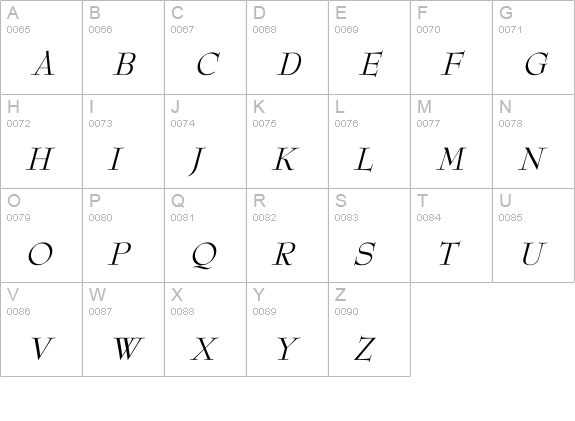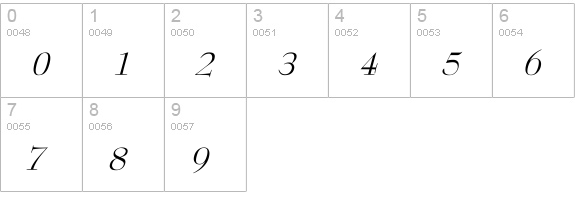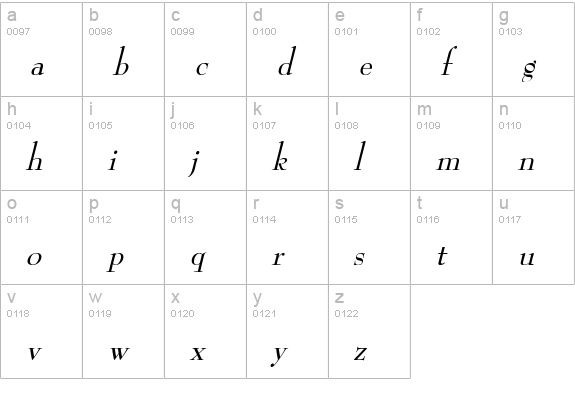
ReedFont Italic Font Details
ReedFont Italic is a distinctive, italic variant in the ReedFont typeface family \xE2\x80\x94 well suited to design and typography projects.
ReedFont Italic is a visually stunning font that brings a touch of elegance and sophistication to any design project. Its slanted and sleek appearance adds a stylish flair, making it perfect for headings, titles, and other eye-catching elements. This exquisite font showcases a unique blend of modernity and classic charm, making it suitable for a wide range of applications. Whether you're designing a website, crafting a logo, or creating a beautiful invitation, ReedFont Italic effortlessly elevates your design with its subtle yet impactful presence. What sets ReedFont Italic apart is not just its captivating aesthetics, but also the fact that it is available for free. Yes, you read that right! This amazing font can be freely downloaded at FontsMarket.com, ensuring that you can access this gem without breaking the bank. With its smooth and flowing letterforms, ReedFont Italic exudes a sense of sophistication and grace. Each character is carefully crafted, allowing for seamless readability and legibility, even at smaller sizes. The italicized slant adds a touch of dynamism, making your text appear dynamic and engaging. Designed with versatility in mind, ReedFont Italic effortlessly adapts to various design styles and themes. Whether you're going for a minimalist approach or aiming for a more ornate and decorative look, this font effortlessly complements your vision, adding a touch of refinement and character. As you explore the possibilities with ReedFont Italic, you'll discover its versatility and adaptability to various design projects. From print materials such as brochures, posters, and packaging, to digital mediums like websites and social media graphics, this font truly shines in any context. So why wait? Embrace the beauty and elegance of ReedFont Italic today. Download this stunning font for free at FontsMarket.com and unlock a world of endless design possibilities. Elevate your creations, captivate your audience, and make a lasting impression with ReedFont Italic.